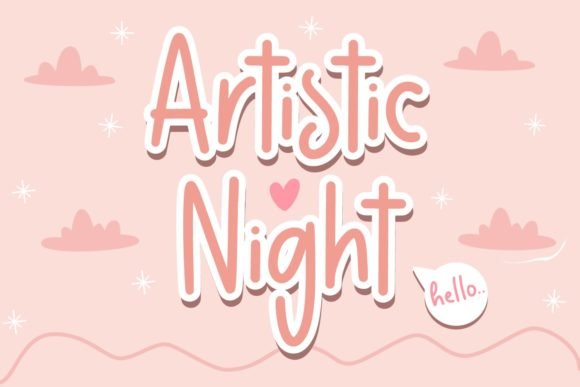
Unleash Your Creativity with Artistic Night Font
Remember that late-night design session where the clock strikes midnight, and the only thing that matters is bringing your vision to life? The room is dimly lit, the coffee is cold, but your imagination is burning bright. You’re on a mission to create something truly special, and the right font can make all the difference.
Enter Artistic Night Font, a cool and casual display font designed to elevate any creation. Whether you’re designing a logo, a social media graphic, or a marketing campaign, this font is the perfect addition to your toolkit. With its unique blend of style and versatility, Artistic Night Font is an invaluable asset for designers looking to add a touch of sophistication to their work.
Key Features of Artistic Night Font
- Font Family: Artistic Night, with 6 styles (Regular, Italic, Bold, Bold Italic, Light, Light Italic)
- Character Set: Latin, Cyrillic, and Greek alphabets, covering a wide range of languages
- Unique Characteristics: Artistic Night features a unique blend of modern and vintage elements, with intricate details and subtle texture, making it perfect for creative projects and designs that require a touch of elegance and sophistication
Artistic Night Font Review
As a designer, I was excited to dive into the Artistic Night Font, and overall, I found it to be a visually striking and creative addition to any design project. ✨ Here are some of the key things that worked well for me:
- Unique aesthetic: The Artistic Night Font has a distinct, hand-drawn quality that sets it apart from more generic fonts.
- Highly customizable: With its open-source nature, I was able to easily modify and adapt the font to suit my specific design needs.
- Perfect for creative projects: The Artistic Night Font’s playful, whimsical feel makes it ideal for art, design, and other creative endeavors.
However, as with any font, there are some limitations to consider:
- Readability issues: In certain situations, the Artistic Night Font can be difficult to read, particularly at smaller font sizes.
- Lack of polish: Some characters may appear rough or unpolished, which can detract from the overall design.
Overall, I’d say the Artistic Night Font is a great choice for designers looking to add some personality to their work. While it may not be suitable for every project, its unique aesthetic and high level of customization make it a valuable addition to any design toolkit.
Getting the Most Out of Artistic Night Font
To get the most out of Artistic Night Font, use it for:
– Titles and headings for a touch of elegance.
– Quotes and lyrics for a romantic feel.
– Branding and logos for a unique look.
Artistic Night Font is commonly used for:
– Wedding invitations and stationery.
– Book covers and book titles.
– Music and art projects.
Alternatives to Artistic Night Font
Great Vibes is a modern calligraphy font that is perfect for creative projects, wedding invitations, and social media graphics. It has a more elegant and refined feel compared to Artistic Night Font, which makes it suitable for formal events and high-end branding.
Comparison: Great Vibes has a more subtle and sophisticated design, whereas Artistic Night Font is bolder and more expressive.
Pacifico is a beautiful script font that is great for creating a relaxed and casual atmosphere. It’s perfect for branding, packaging, and social media content that requires a friendly and approachable tone. Unlike Artistic Night Font, Pacifico has a more laid-back and effortless feel.